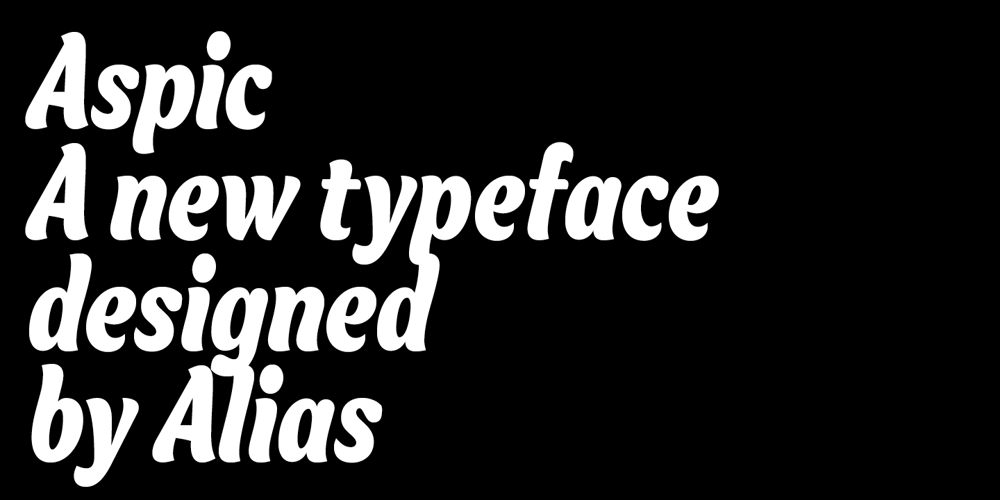
Aspic Font Family was designed by Gareth Hague and published by Alias. Aspic contains 2 styles and family package options. Asperity, Asphalt and Aspic, were designed for Another magazine issues 18 and 19, A typeface in three versions, Hard, Soft and Script, three typefaces with the same character shape, where hard is angular, Soft is brushlike, and Script a painted-ish connected design. If Asperity references pen-drawn and carved lettering, Aspic has a different set of influences, but still based on crafted, calligraphic hand lettering. Aspic takes ideas from the lettering you might find on cereal packets or toilet rolls. Seemingly throwaway or ephemeral, these are skilfully drawn, crafted lettering designs, presumably brush-like and handwritten to signify friendliness, warmth. Aspic has that same swashy character, but is not overly informal. Rounded, but not hand-done.